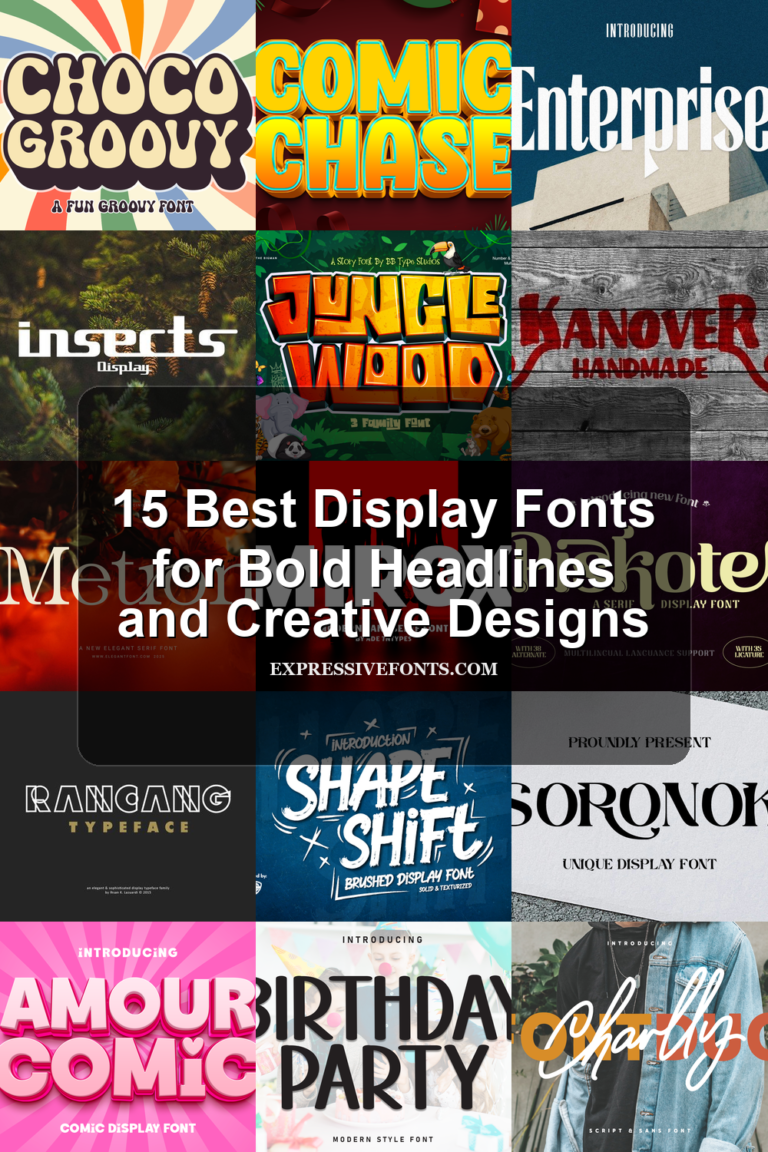
15 Best Display Fonts for Bold Headlines and Creative Designs
We selected the best display fonts to help you save time and create bold, memorable designs. This collection includes playful, retro, modern, handmade, and eye-catching typefaces that can work well for posters, branding, packaging, social media graphics, and other creative projects. Comic Chase Font Best For: display text, headlines, short phrases, fun designs Comic Chase…